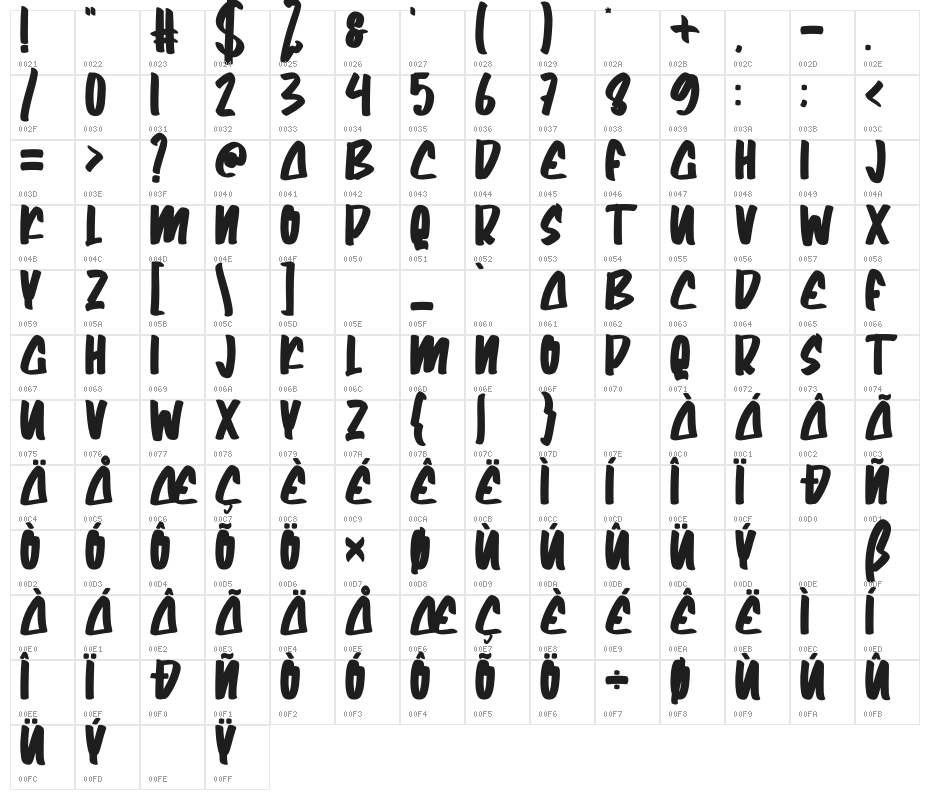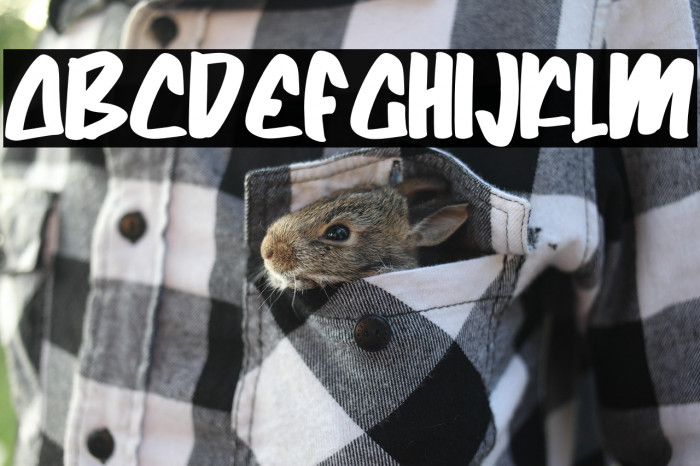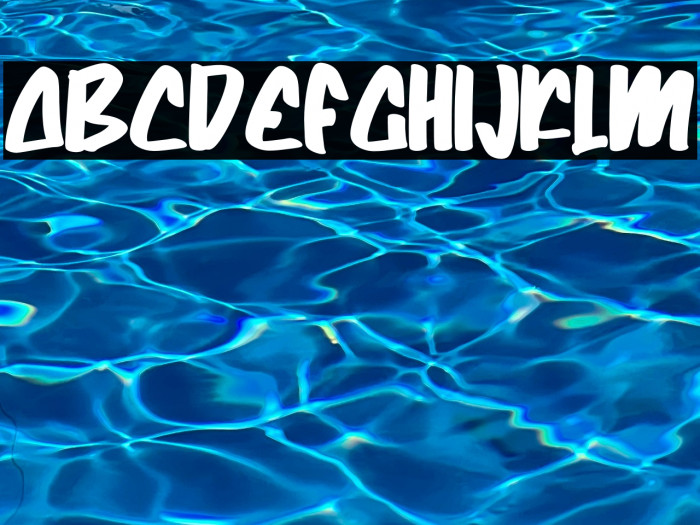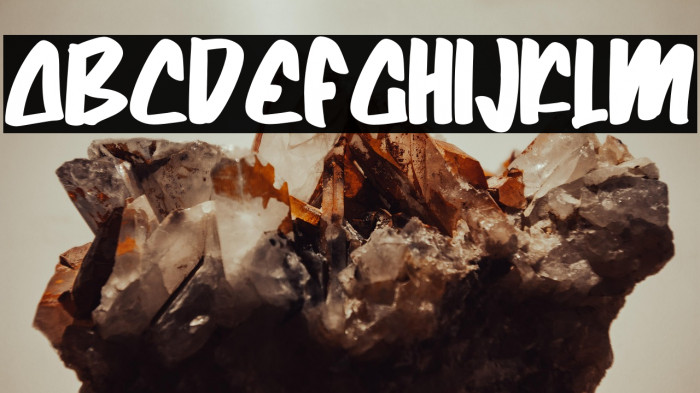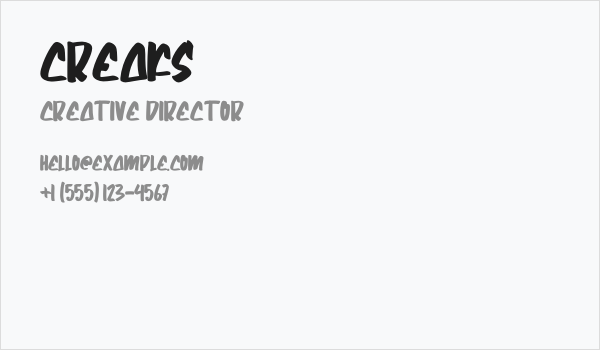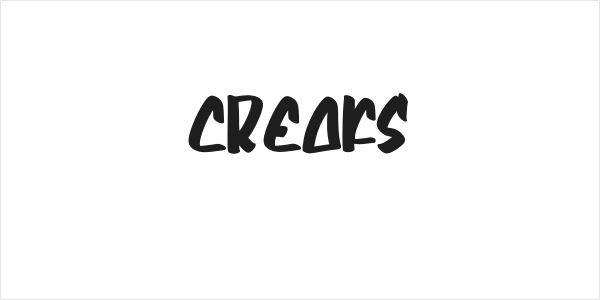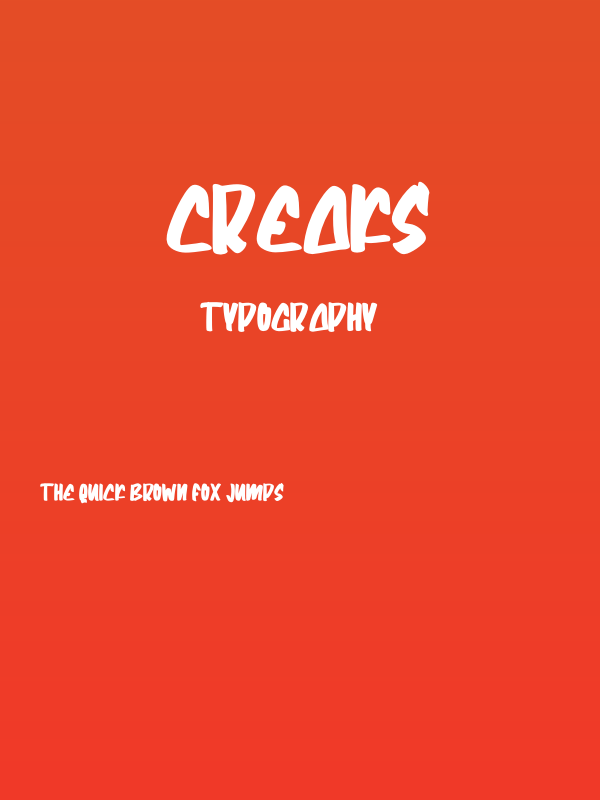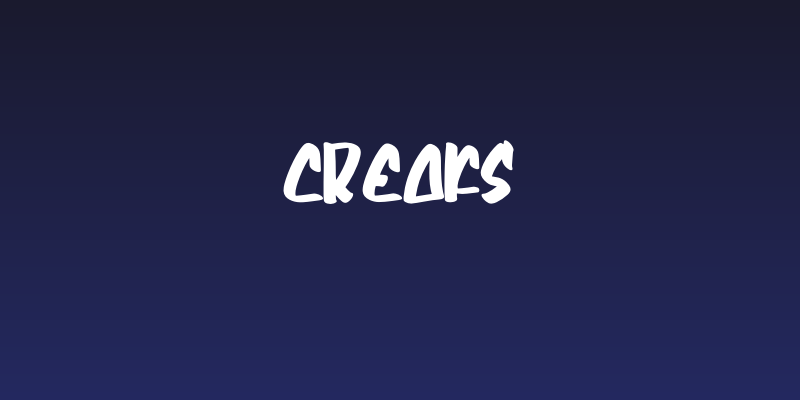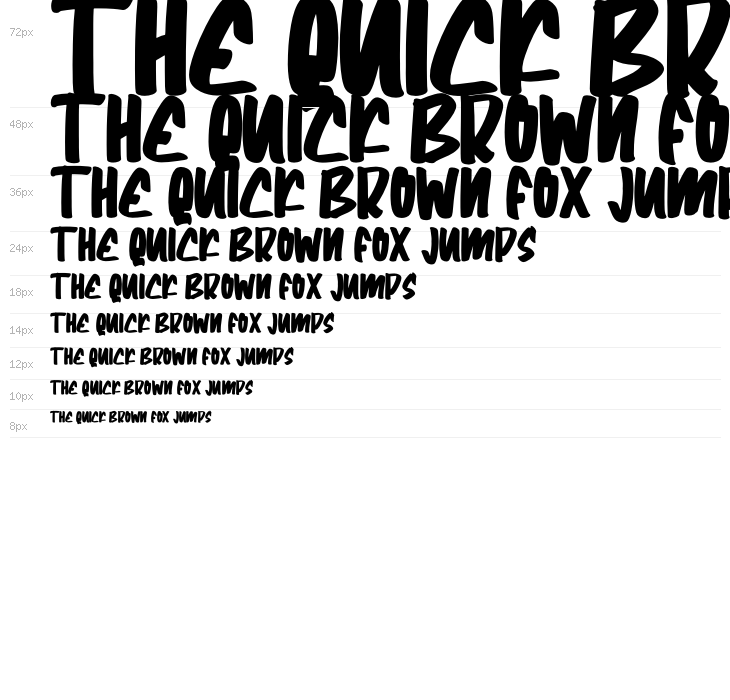
Creaks Font
Creaks Description
This font features a bold and energetic style with thick, brush-like strokes that convey a sense of movement and dynamism. The uppercase and lowercase letters maintain a consistent weight, creating a cohesive look across the alphabet. The numbers and special characters are equally bold, ensuring visibility and impact. The overall appearance is playful and informal, making it suitable for creative and expressive projects. The character spacing is tight, which enhances the compact and robust feel of the text. This font's high contrast in stroke thickness adds to its striking visual appeal.
| Proposed Projects | Ideal for posters, logos, branding, and any project requiring a bold, expressive touch. |